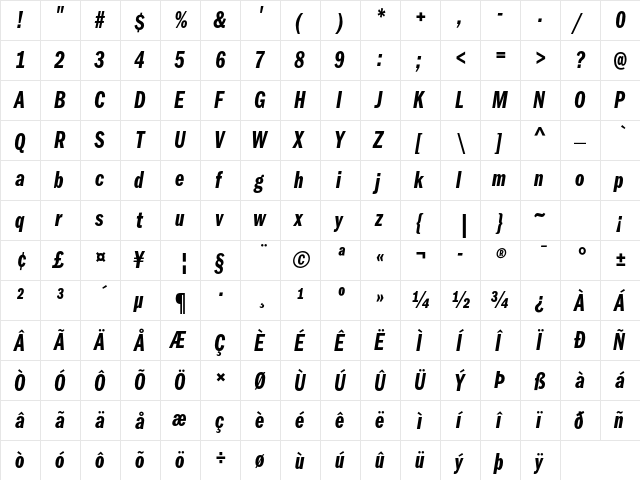
ITC Franklin Gothic Std Demi Compressed Italic
| Designer | Vic Caruso |
Design Context for ITC Franklin Gothic Std Typeface
ITC Franklin Gothic Std has the quiet confidence of well-executed sans-serif typography: versatile, unobtrusive, and dependable at any size. Its italic angle brings a sense of urgency and motion to the letterforms.
Font Pairing: Works well alongside a characterful serif or display font that can carry the expressive load while ITC Franklin Gothic Std handles the functional copy.
Pro Tip: Use ITC Franklin Gothic Std for UI labels, navigation, and short-form body copy where clean legibility is the priority.